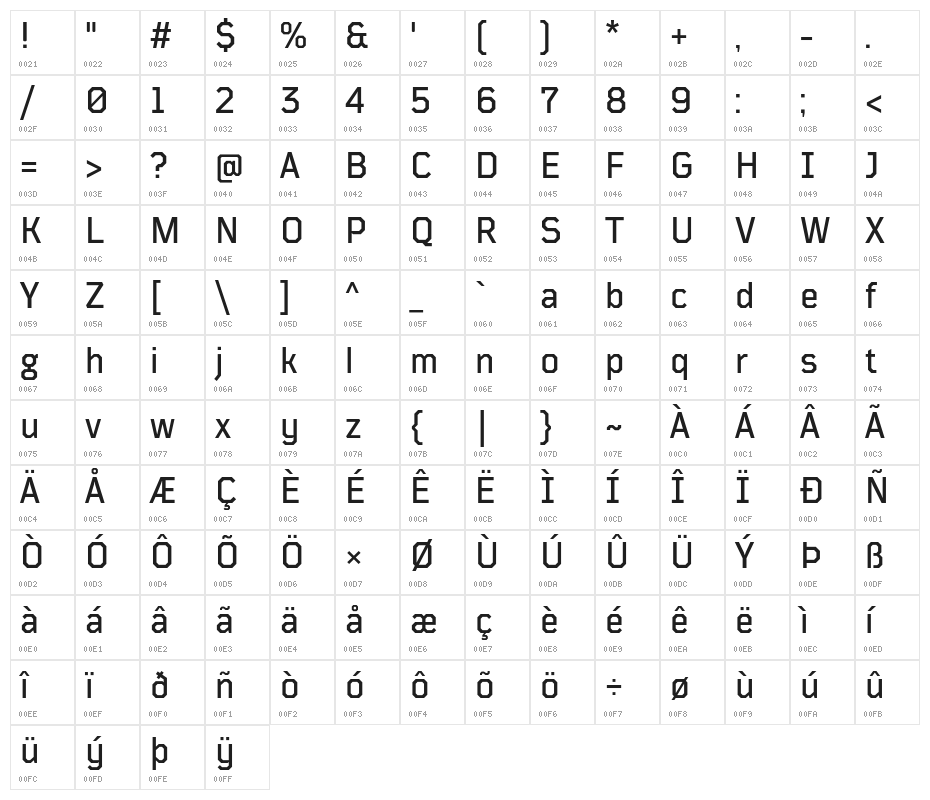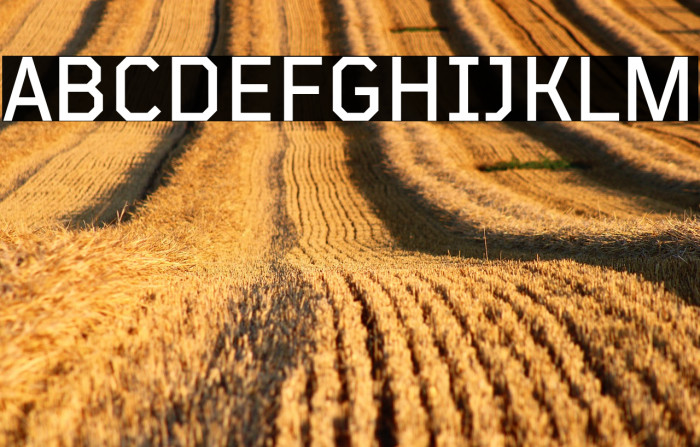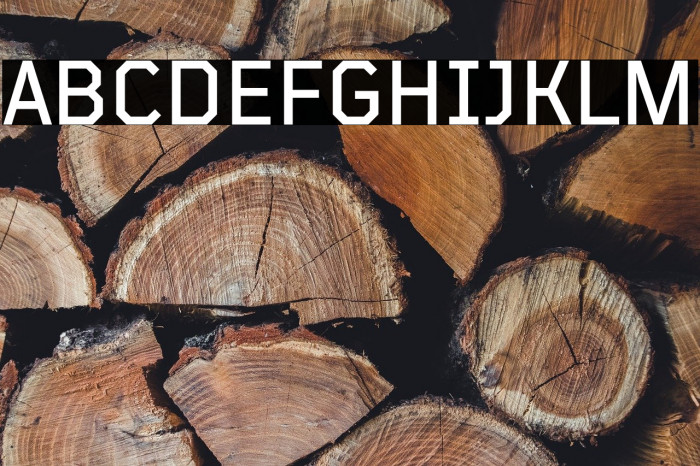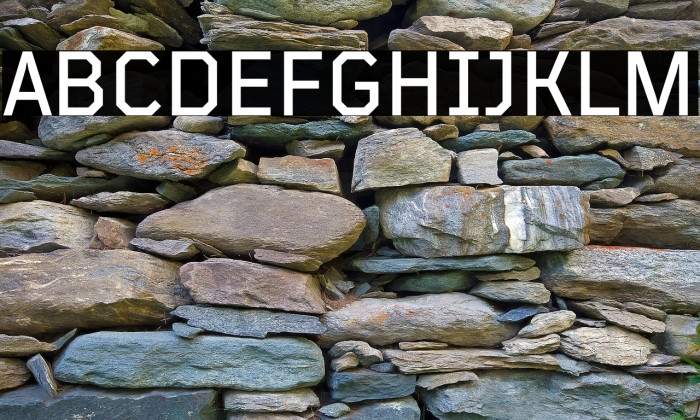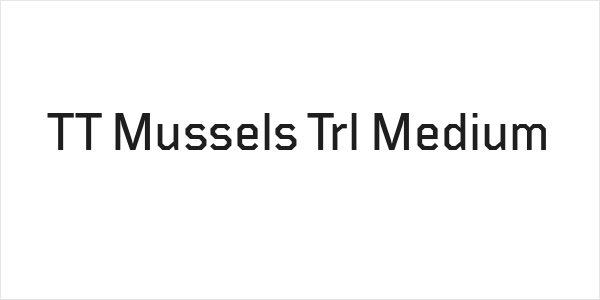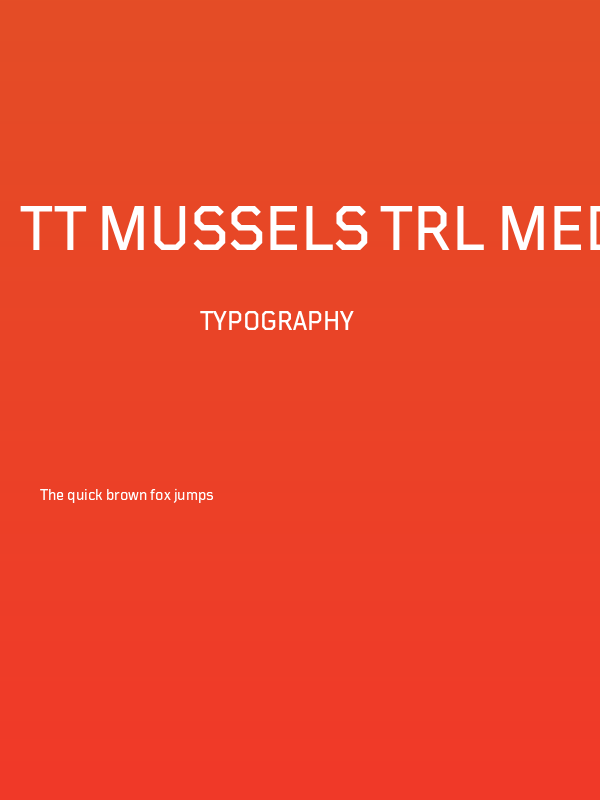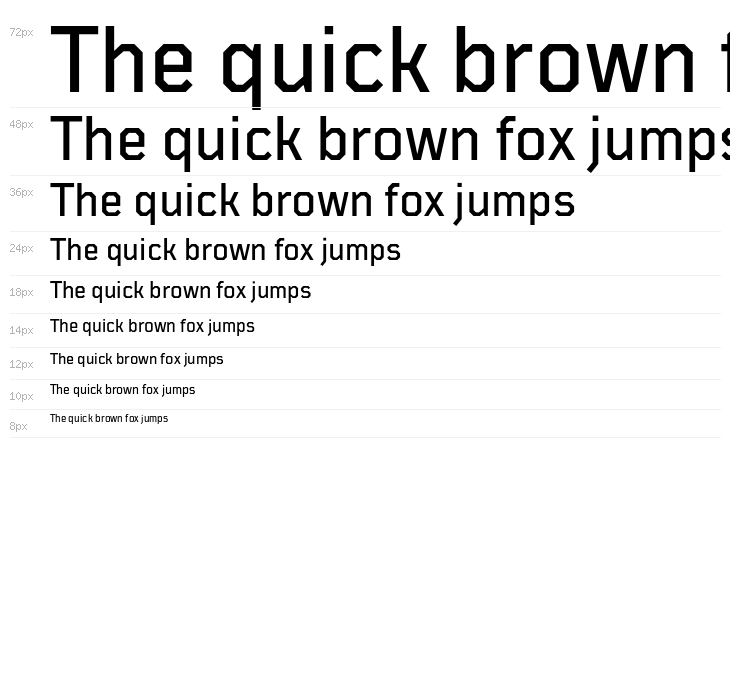
TT Mussels Trl Medium Font
TT Mussels Trl Medium Description
This font features a geometric and modern design with a clean, structured appearance. The characters are composed of straight lines and sharp angles, giving it a technical and precise look. The uppercase and lowercase letters maintain a consistent height, contributing to a uniform and balanced aesthetic. The numerals and special characters are designed to match the overall style, ensuring cohesion across all elements. This font's clarity and simplicity make it highly legible, even at smaller sizes.
| Use Case | Headlines, Logos, Digital Interfaces |
| Proposed Projects | Ideal for technology branding, digital interfaces, and modern editorial design. |